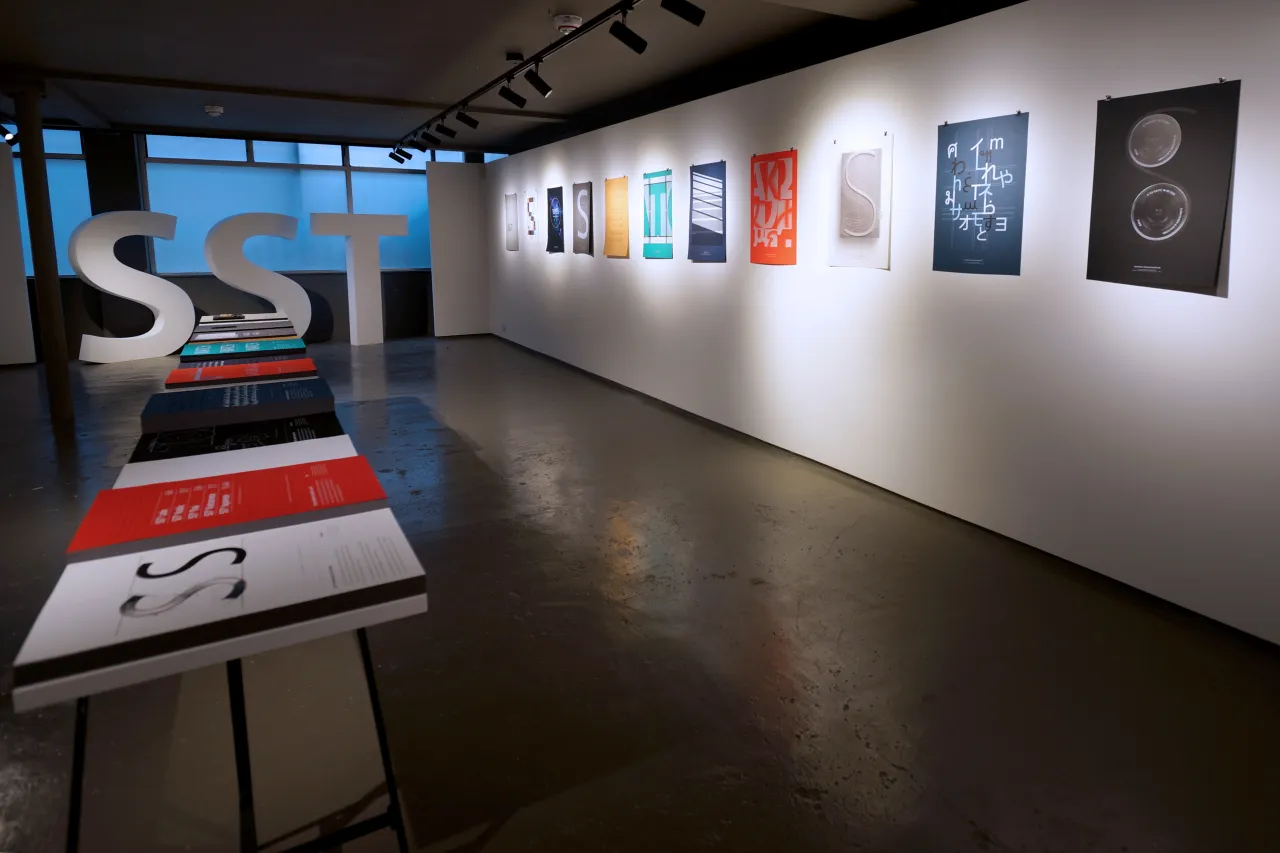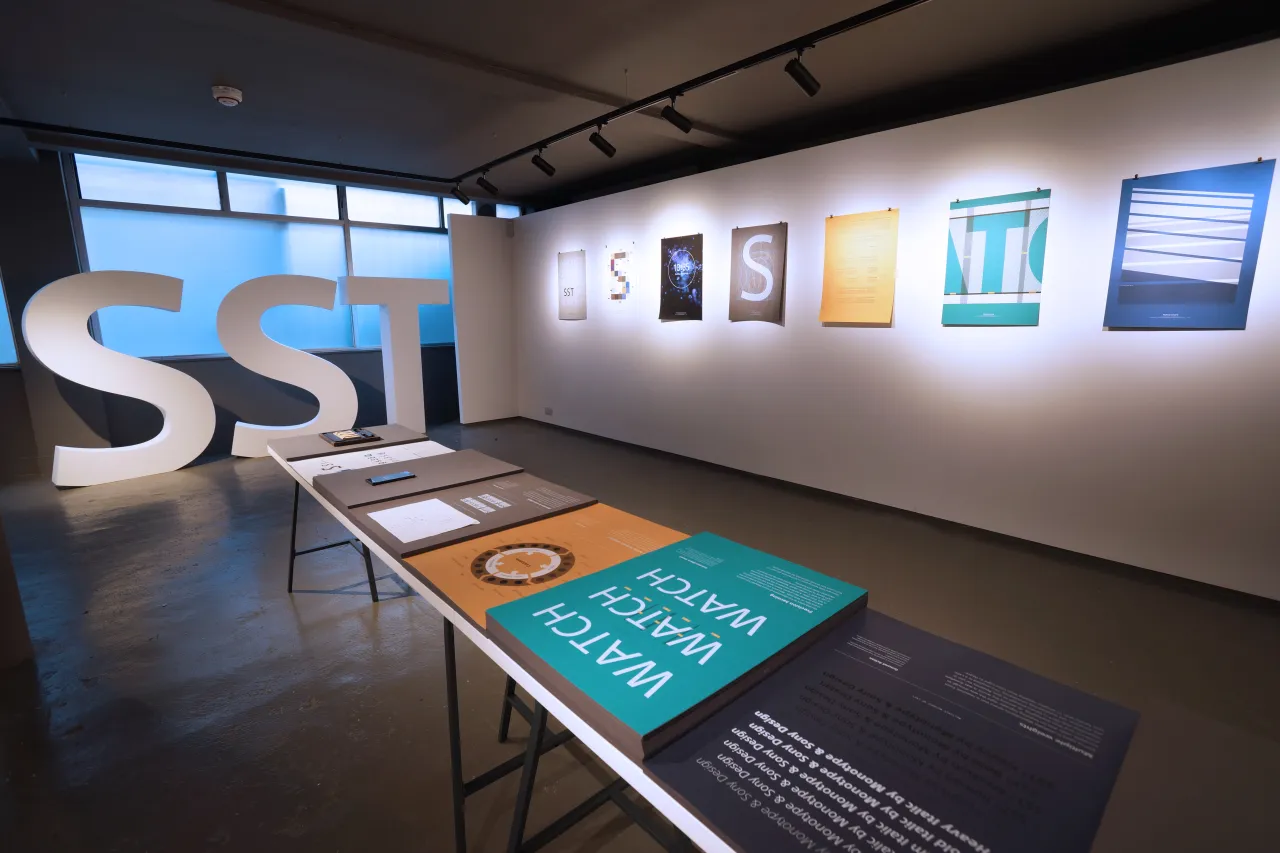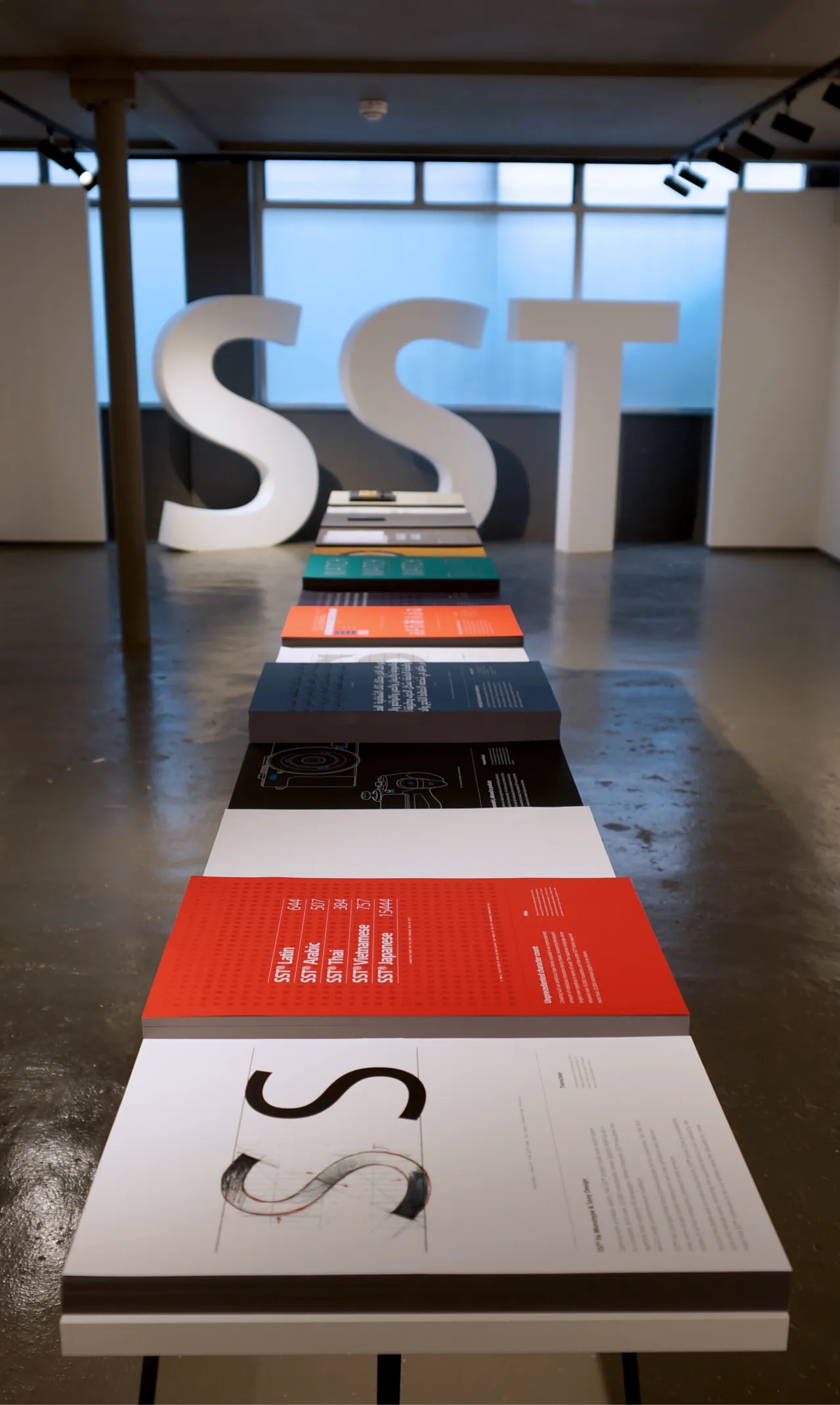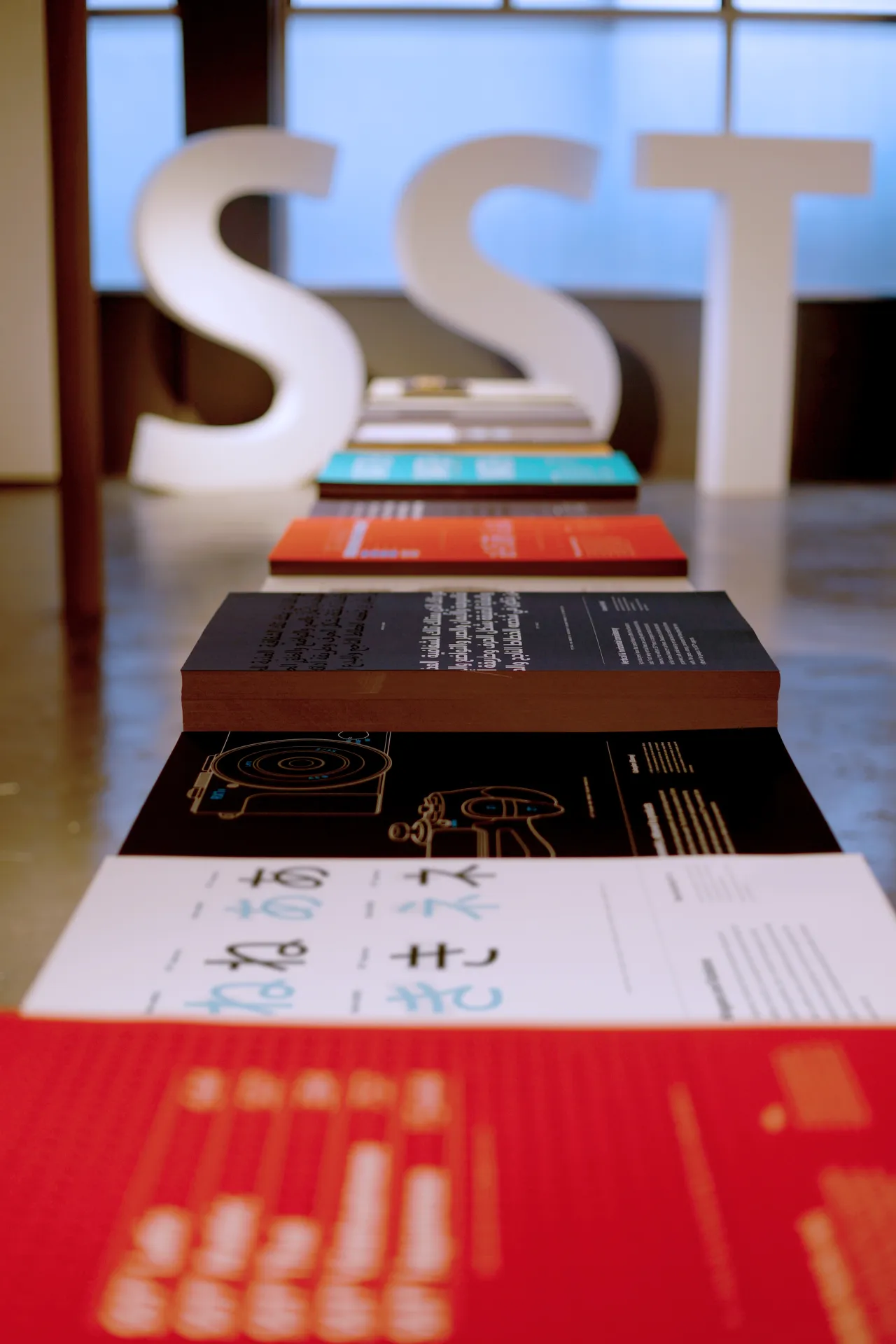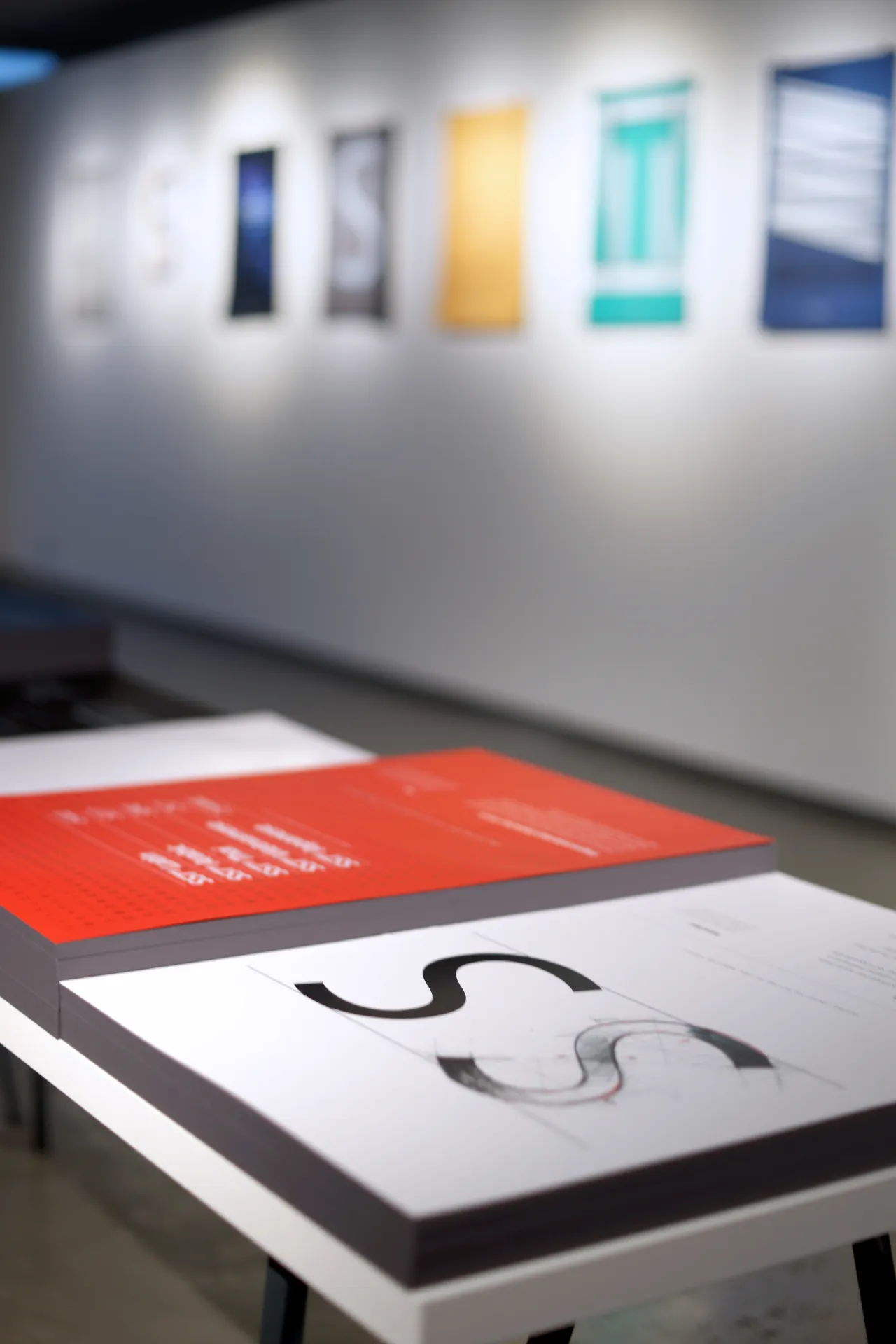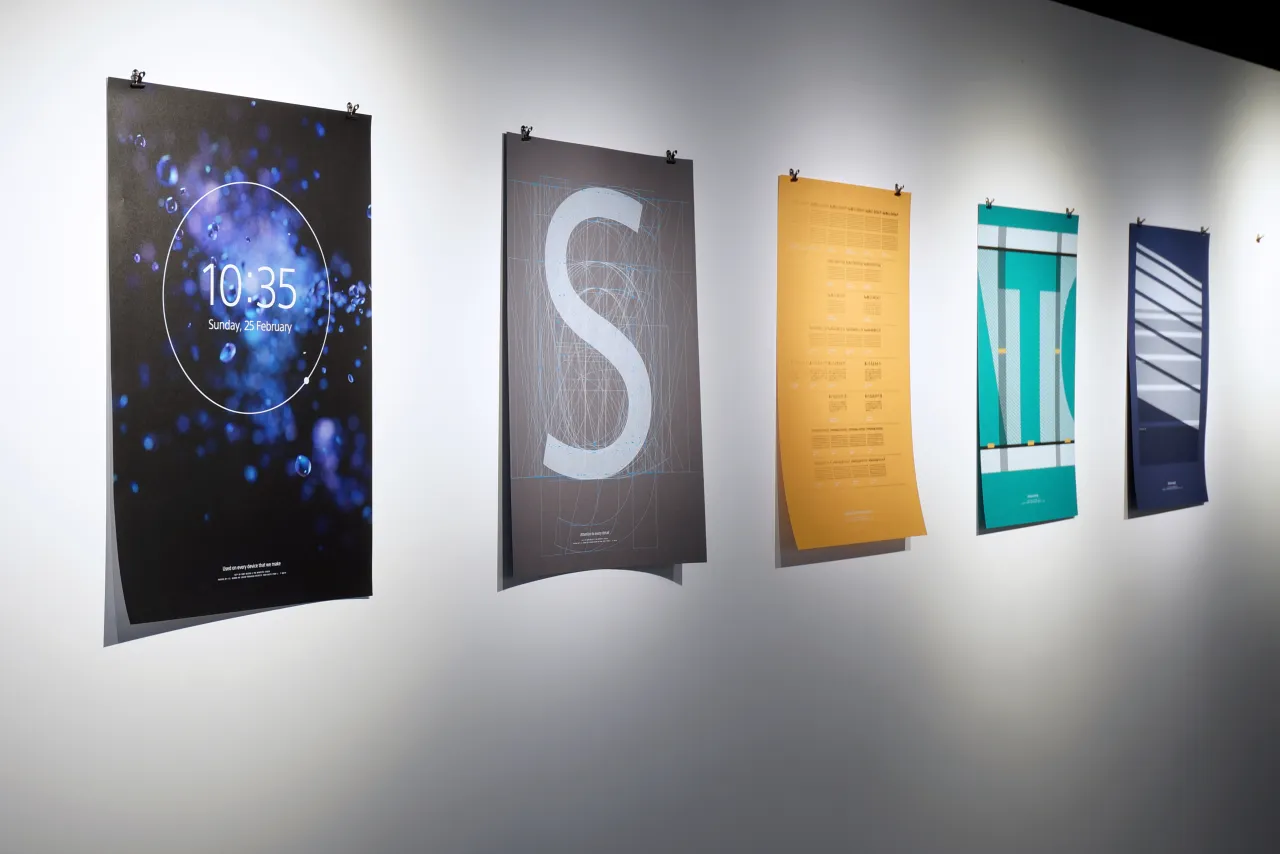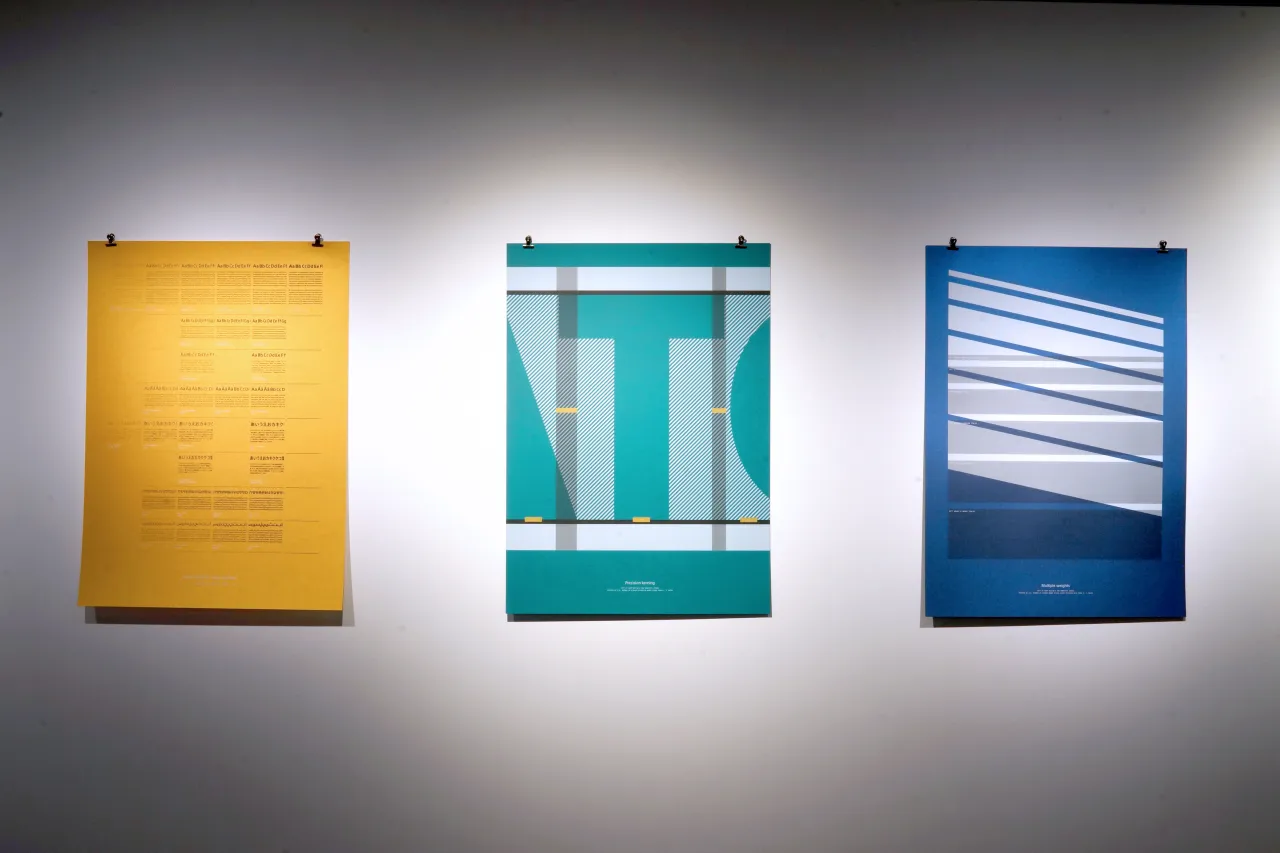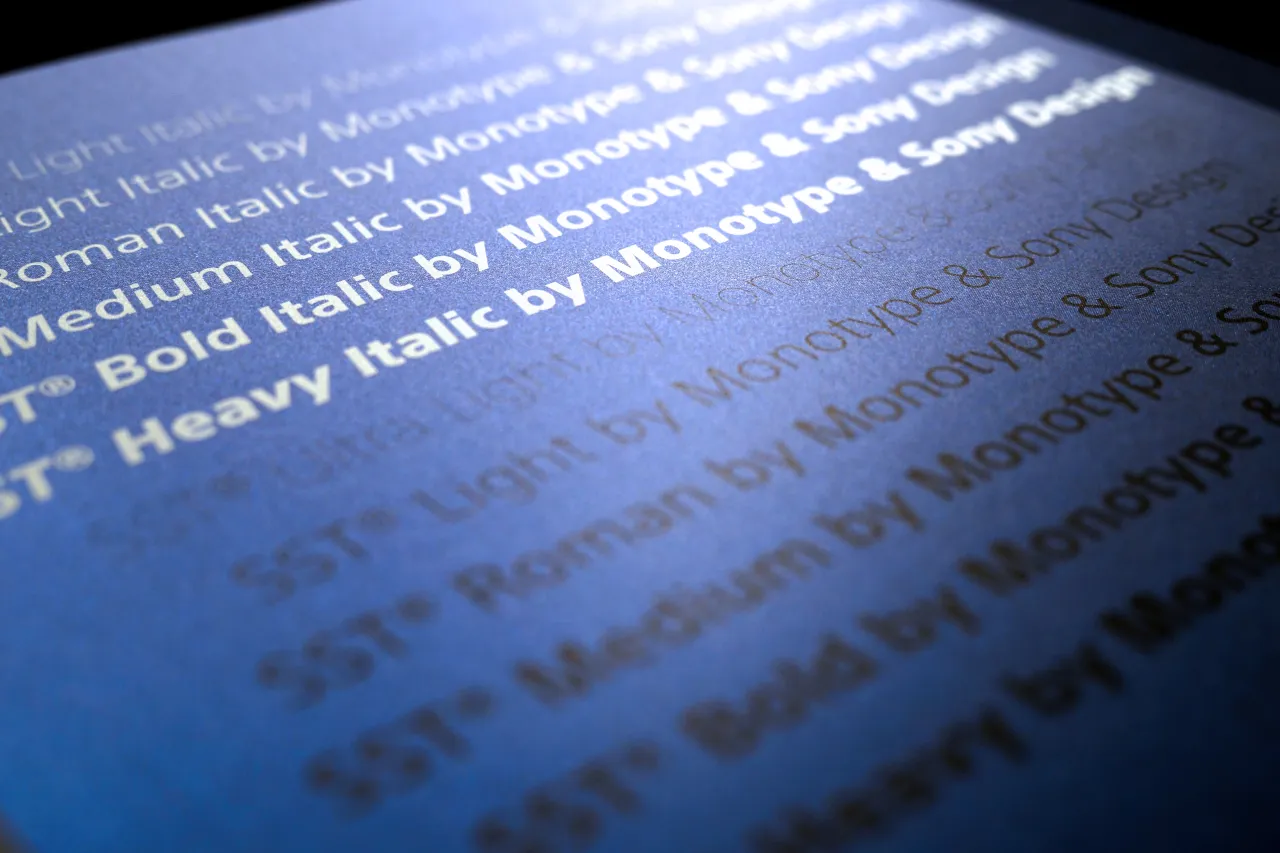
Monotype celebrates seven years of its Sony SST typeface at G . F Smith's Show Space
At seven years in the making, with more than 22,000 individually drawn characters and encompassing 93 languages, Sony’s SST® typeface is one of the most ambitious creations in the history of type.
Designed by Monotype and Sony Design to unify Sony’s written expression across all the brand’s products, markets and messaging, the SST font family brings a sharp, elegant and timeless look to every alphabet it touches – the first ever typeface to apply the principles of geometric type design to the calligraphy-based Asian and Arabic scripts.
Sony and Monotype’s achievement was recognised with an iF Design Award in 2016, and the story behind its creation is being told in London for the first time, with a special exhibition at the G . F Smith Show Space in Soho.
Running until 11 September, the exhibition explores the making of SST®, from the initial concept to its countless real-world applications, via the meticulous processes and rationale behind the design of each glyph – brought to life with the help of G . F Smith’s papers.
"For international brands, SST brings harmony and personality to communications across cultures and touchpoints. The SST typeface was designed to be universal and timeless, with support for 93 languages and outstanding legibility at all sizes," says Monotype.
"Monotype’s Akira Kobayashi and Sony Creative Center’s Hiroshige Fukuhara created a hybrid of two typographic styles, geometric and humanist. A sharp, solid, geometric edge is evident in uniform line widths – tempered here and there with just a few tiny optical adjustments – and balanced by softer, more organic qualities of humanist design to improve readability at all sizes."